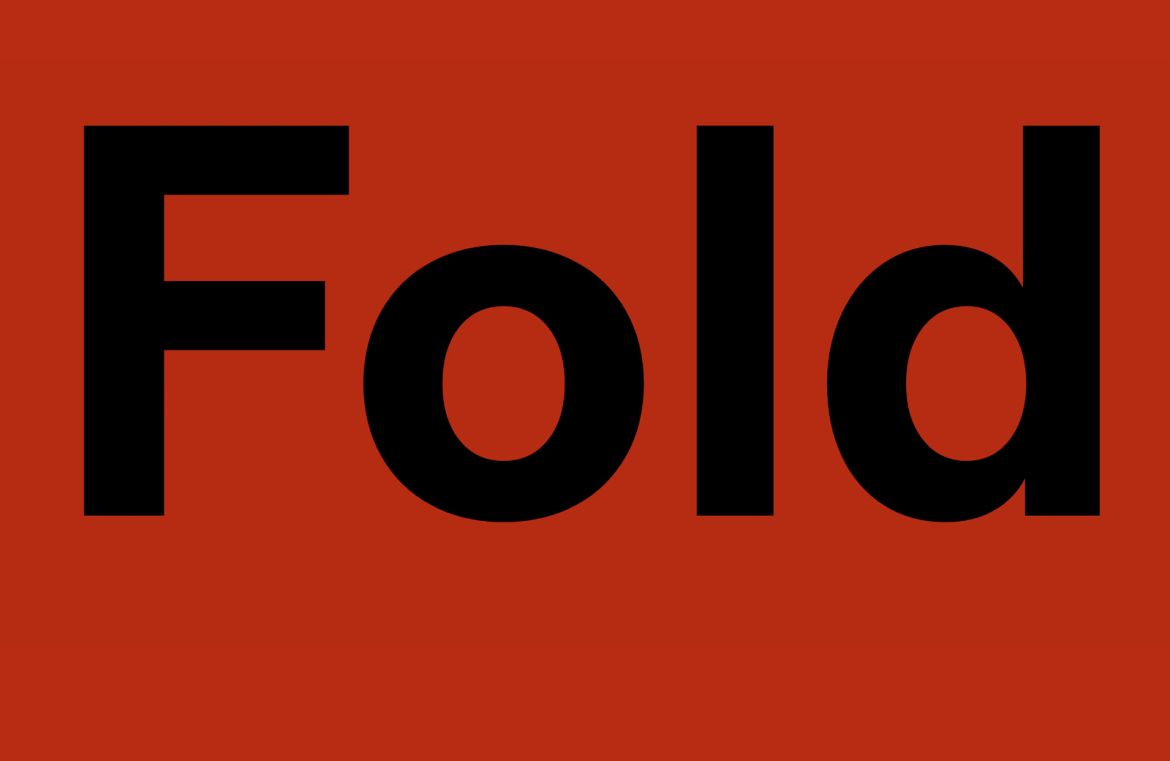
Breaking new ground in the typographic frontier, this month’s selection of top new fonts showcases exceptional design ranging from the bold to the delicate. Ideal for modern tech brands looking to spice up their typographic flair, there’s a font in this array guaranteed to capture your attention.
1. Apice
Apice emerges as a standout script typeface, diverging from the usual fluid scripts with its pronounced, upright structure. While it promises legibility for those accustomed to script writing, it may pose a challenge for a younger audience less versed in cursive forms.
2. Aprello
Aprello adapts gracefully across a wide range of contexts as a versatile sans serif, bolstered by its identity as a variable font and a rich selection of over 150 alternative characters.
3. Chopsin
Chopsin sports a cutting-edge, futuristic vibe perfect for websites centered around advanced technology and innovation. Its adaptability makes it equally suited for use in headlines and body text alike.
4. Diurnal Mono
Diurnal Mono joins the Diurnal family, maintaining its monospaced integrity with a blend of technical geometry and a touch of calligraphic warmth, suited for a multitude of technological interfaces.
5. Fold
Fold embodies the quintessential neo-grotesque font, offering simplicity and neutrality to counterbalance more intricate design elements.
6. Gardez
Gardez is an imaginative display typeface that shines at large scales, marrying the classic feel of garalde serifs with the unconventional appeal of reverse-contrast designs.
7. Gate A1
Gate A1 draws inspiration from the DIN typeface lineage, delivering a no-frills, highly readable font that excels across both digital interfaces and real-world signage.
8. Inbadge
Inbadge offers a playful brush script quality that lends itself beautifully to logos, packaging, and splashy website headers, favoring brands with a spirited and youthful image.
9. Kosmos
Kosmos is a daring experimental font crafted from parallel line patterns, where the chosen weight significantly influences legibility—a consideration worth noting for designers opting for this font.
10. Maax Unicase
Maax Unicase expands the Maax family with a robust unicase display font that stands out by maintaining lowercase characteristics in a uniform height format.
11. Nilota
Nilota Typeface offers a refreshing take on the serif genre, melding modernity with a relaxed demeanor that defies the traditional conservative stereotype associated with serifs.
12. Rainbow Chalk
Rainbow Chalk exudes charm with its handwritten serif appearance, well-suited for projects targeting younger audiences or any setting that calls for a relaxed and inviting atmosphere.
13. Right Sans
Right Sans stands as a prominent high-contrast serif, boasting a vast family that offers a rich palette of heights, widths, and styles, providing a stylish versatility.
14. Sagire
Sagire radiates a vintage charm reminiscent of classic film title screens, making it an excellent choice for projects aiming for an air of old-world elegance and sophistication.
15. TT Norms Pro Mono
TT Norms Pro Mono, the latest addition to the TT Norms Pro collection, is a monospaced font that impresses with its appealing and highly readable design, suitable for a diverse array of digital platforms, from tech sites to personal blogs.